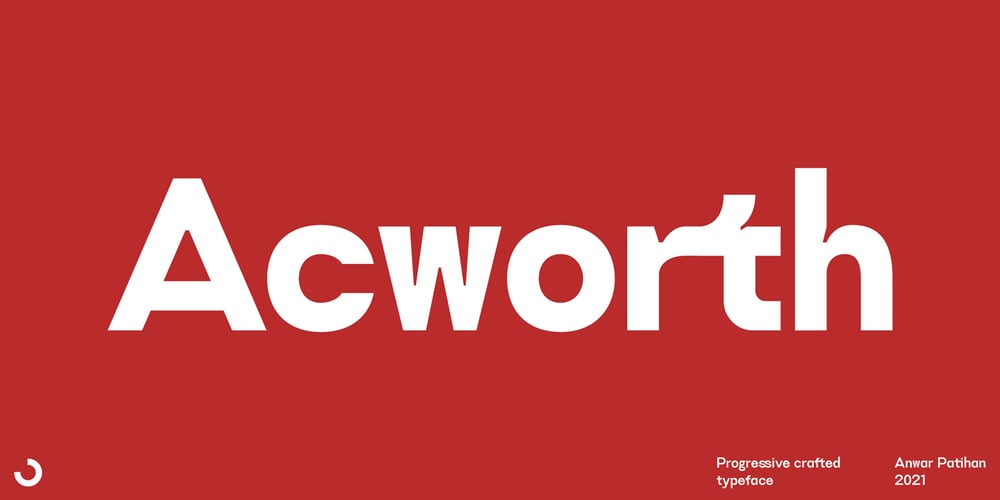
Acworth Font Family was designed by Anwar Patihan and published by Jehoo Creative. Acworth contains 5 styles and family package options. Acworth is a contemporary progressive typeface that explores mechanical robustness and dynamism. Inspired by the advancement of fast-moving technology culture. The characters have an ink trap that makes Acworth very legible and a standout feature, thereby creating a modern versatile form.Making it usable for editorial, graphic design, web look, quotes or as a logo. This new type will make your designs stand out.Has 4 weights and 1 outline style having alternate features on the characters a, f, g, y and equipped with ligatures. Support languages Western Europe, Central / Eastern Europe, Baltic, Turkish, Romanian, Cyrillic.